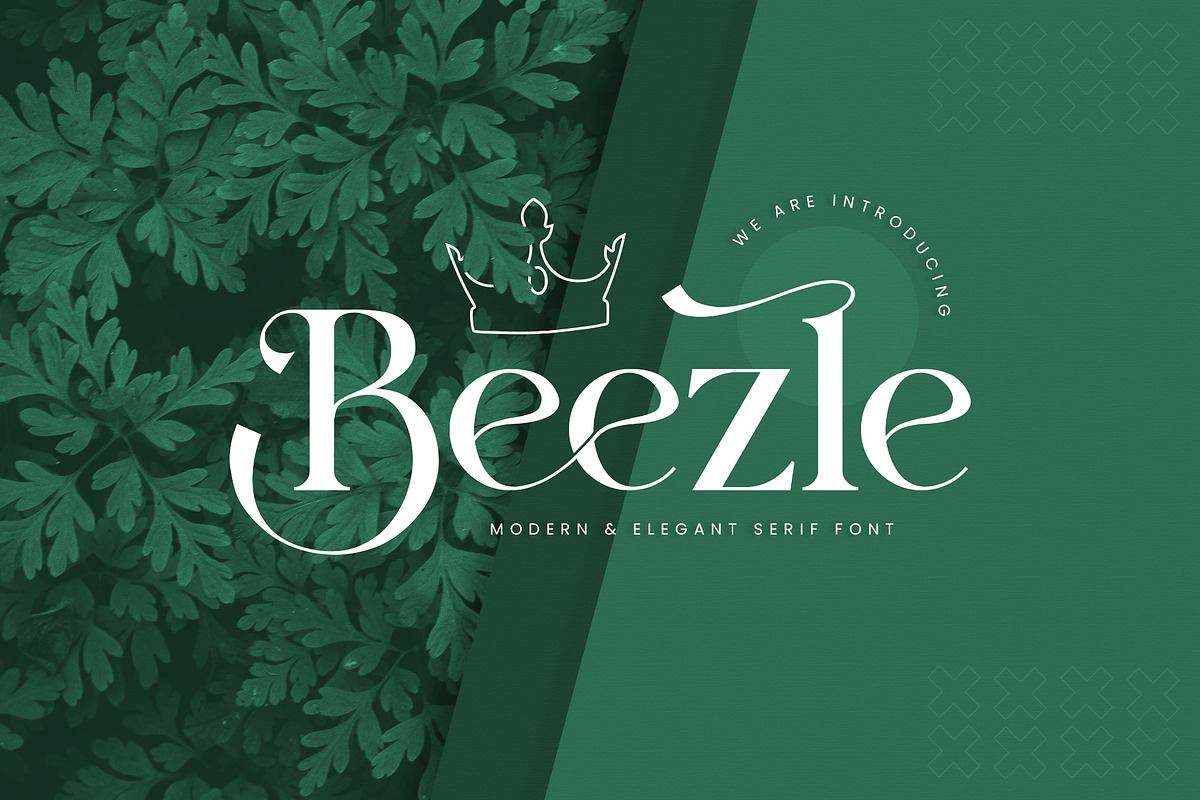
Beezle Modern Serif Font Free Download is a striking and stylish typeface that merges classic serif elegance with contemporary design flair. Featuring sharp serifs, clean lines, and distinctive letterforms, Beezle is perfect for editorial layouts, fashion branding, luxury packaging, logos, and high-end digital content.
Its bold presence and refined details make it ideal for headlines and impactful statements, while still remaining readable across various formats. Beezle delivers sophistication and versatility, making it a standout choice for modern creatives.